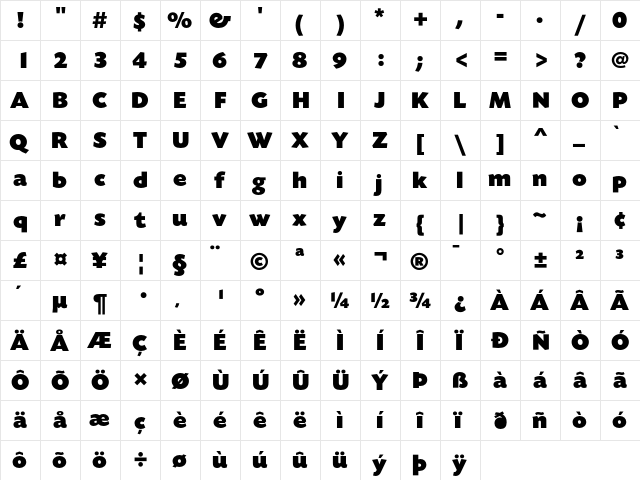
Today SB Ultra Regular
Design Context for Today SB Ultra Typeface
Today SB Ultra offers clean, dependable letterforms without strong stylistic allegiance, making it a practical choice for designers who need flexibility.